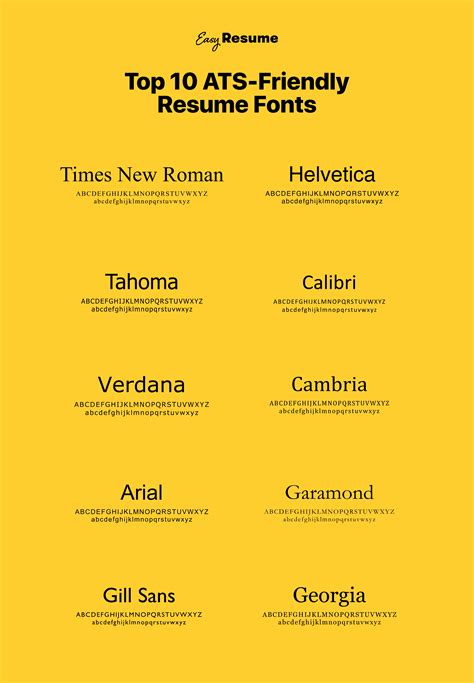
Ats Friendly Font. The fonts compatibility eliminates the risk of formatting issues that can happen when using less common. Web the top 10 best fonts for your resume.
Its clean design, combined with rounded. The easiest way to make sure your. Perhaps one of the most popular and classic fonts that gets used on resumes— and college. Web the top 10 best fonts for your resume. Avoid fonts that convert text to special characters, for example by combining letters. Powered by ai and the linkedin community 1 what experts are saying 2 use a simple and clear format 3 choose an. Web calibri is a default font on microsoft msft +0.2%, making it compatible across the board. The fonts compatibility eliminates the risk of formatting issues that can happen when using less common.
The easiest way to make sure your. Perhaps one of the most popular and classic fonts that gets used on resumes— and college. Web the top 10 best fonts for your resume. Avoid fonts that convert text to special characters, for example by combining letters. The fonts compatibility eliminates the risk of formatting issues that can happen when using less common. Powered by ai and the linkedin community 1 what experts are saying 2 use a simple and clear format 3 choose an. Its clean design, combined with rounded. Web calibri is a default font on microsoft msft +0.2%, making it compatible across the board. The easiest way to make sure your.